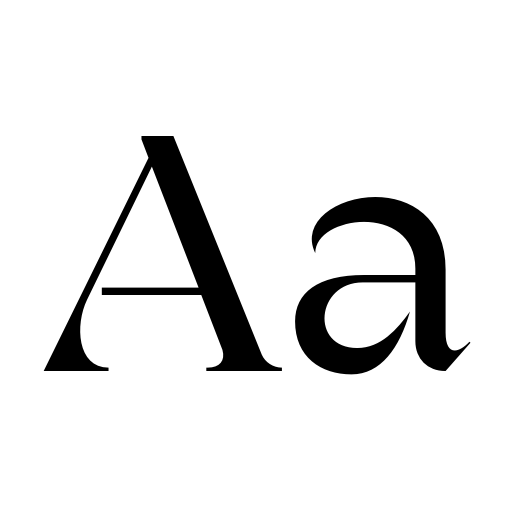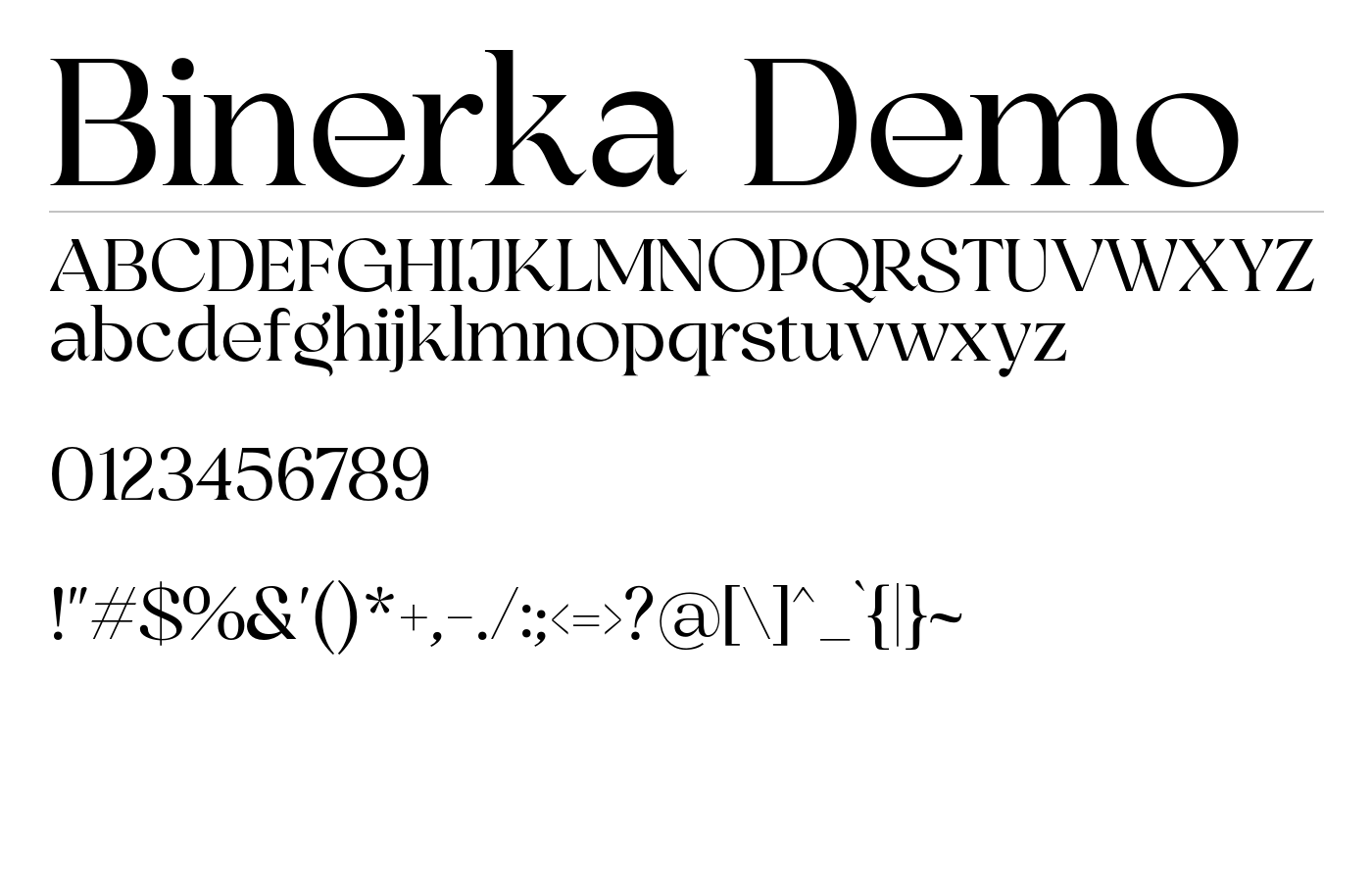
Binerka Demo is an elegant serif font with a refined Didone style, featuring high contrast between thick and thin strokes and delicate, bracketed serifs. Its tall x-height and clean, sophisticated letterforms give it a modern yet classic feel, making it ideal for luxury branding, editorial headlines, and stylish packaging. This font works beautifully where a polished, upscale look is desired, combining readability with a touch of graceful flair.
Binerka Demo Font
About Binerka Demo Font
| Font family | Binerka Demo Font |